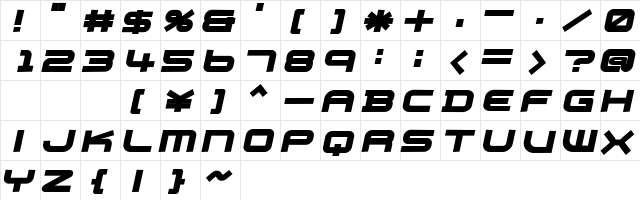
PB010 TRANSPORT X BoldOblique Font Preview
PB010 TRANSPORT X BoldOblique
Design Context for PB010 TRANSPORT X Typeface
PB010 TRANSPORT X brings high-energy athletic personality to the page — its confident, muscular forms are built for impact. The dynamic lean of this cut emphasises speed and emphasis in any layout. The heavy weight commands attention and anchors typographic hierarchies.
A natural choice for gym brands, fantasy sports, jersey lettering, and action-driven headlines.
Pro Tip: Use PB010 TRANSPORT X in all-caps headlines where its athletic energy can fully express itself. Pair with a solid, simple sans for supporting text.